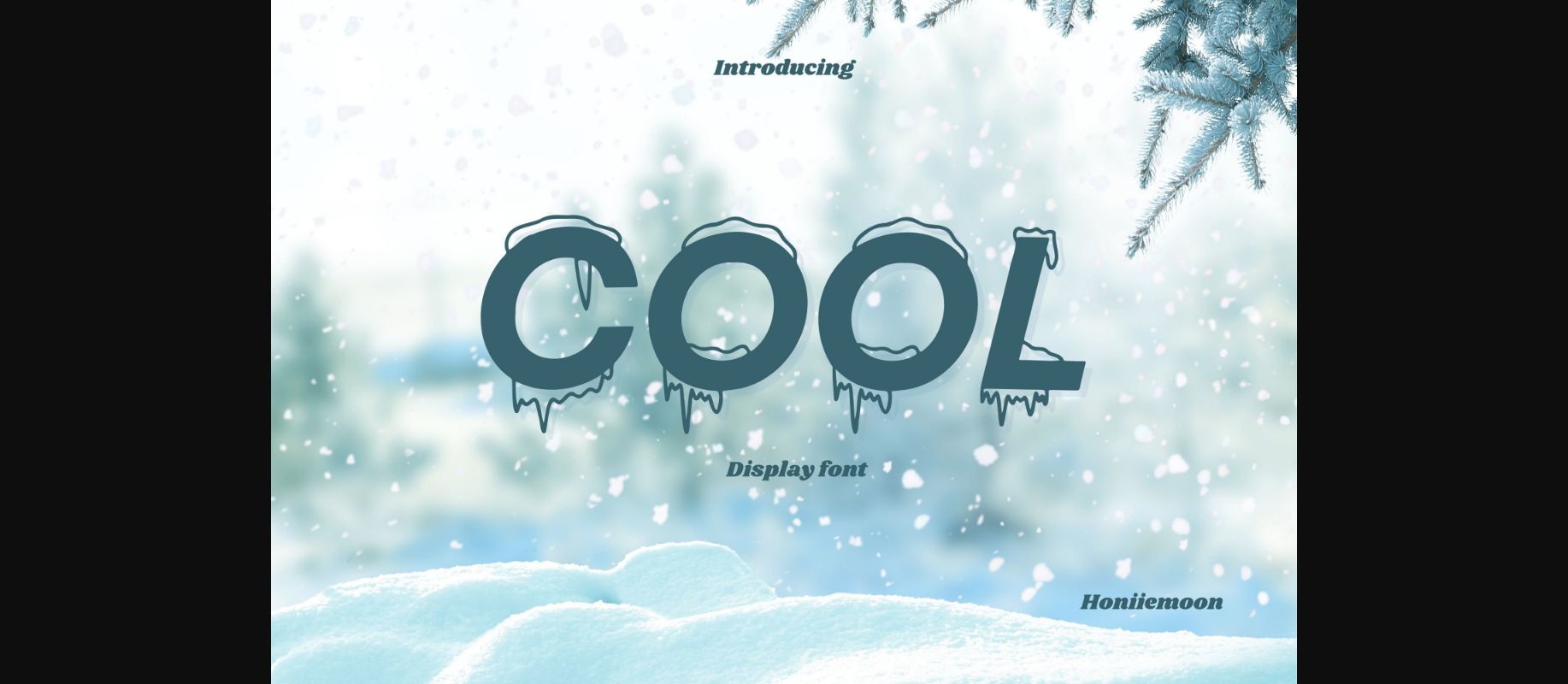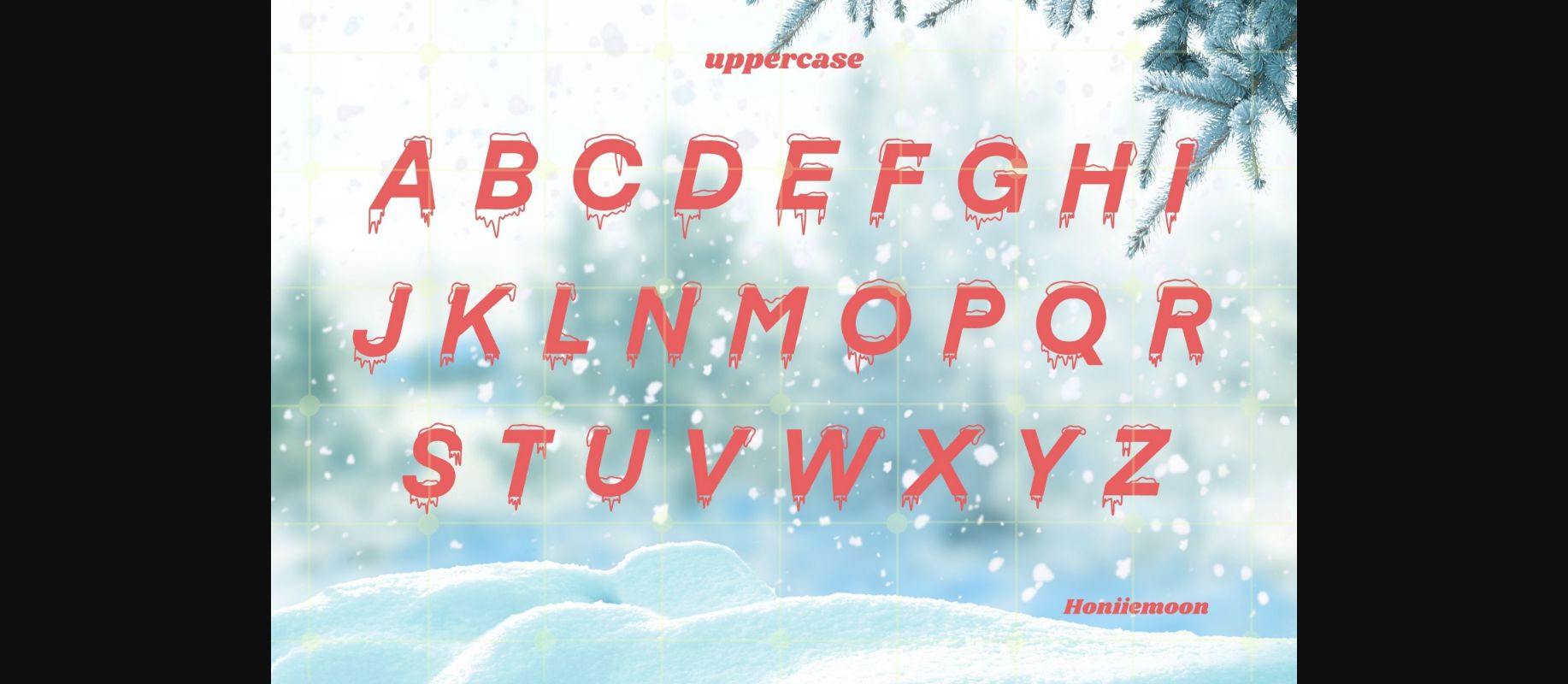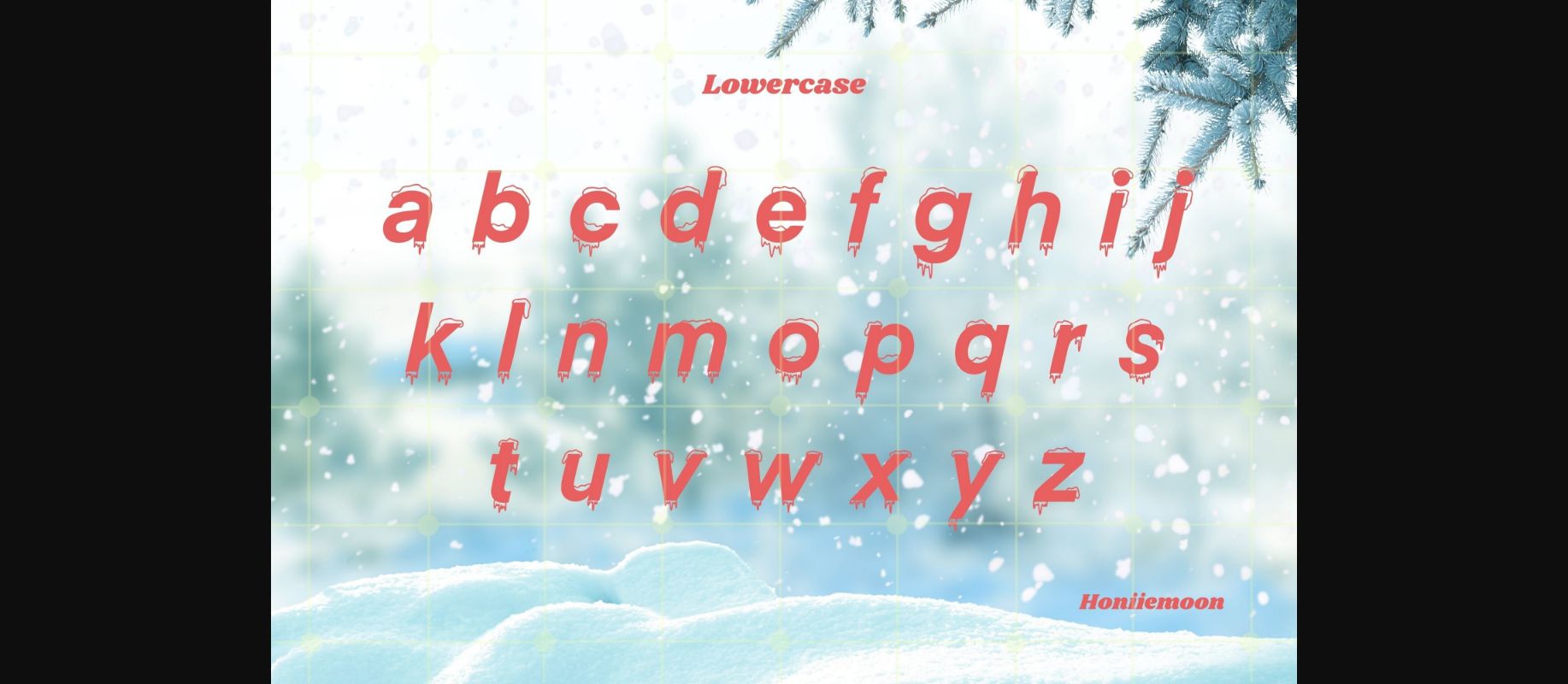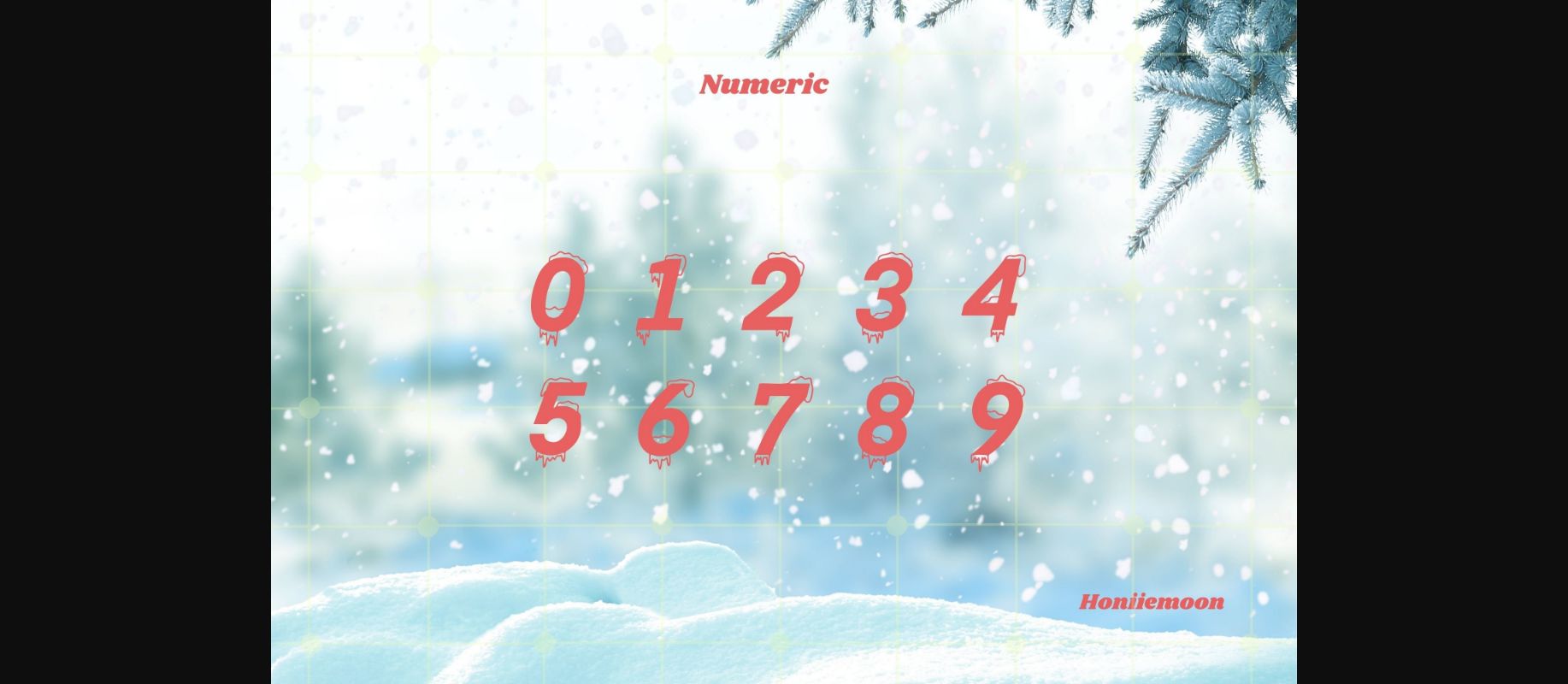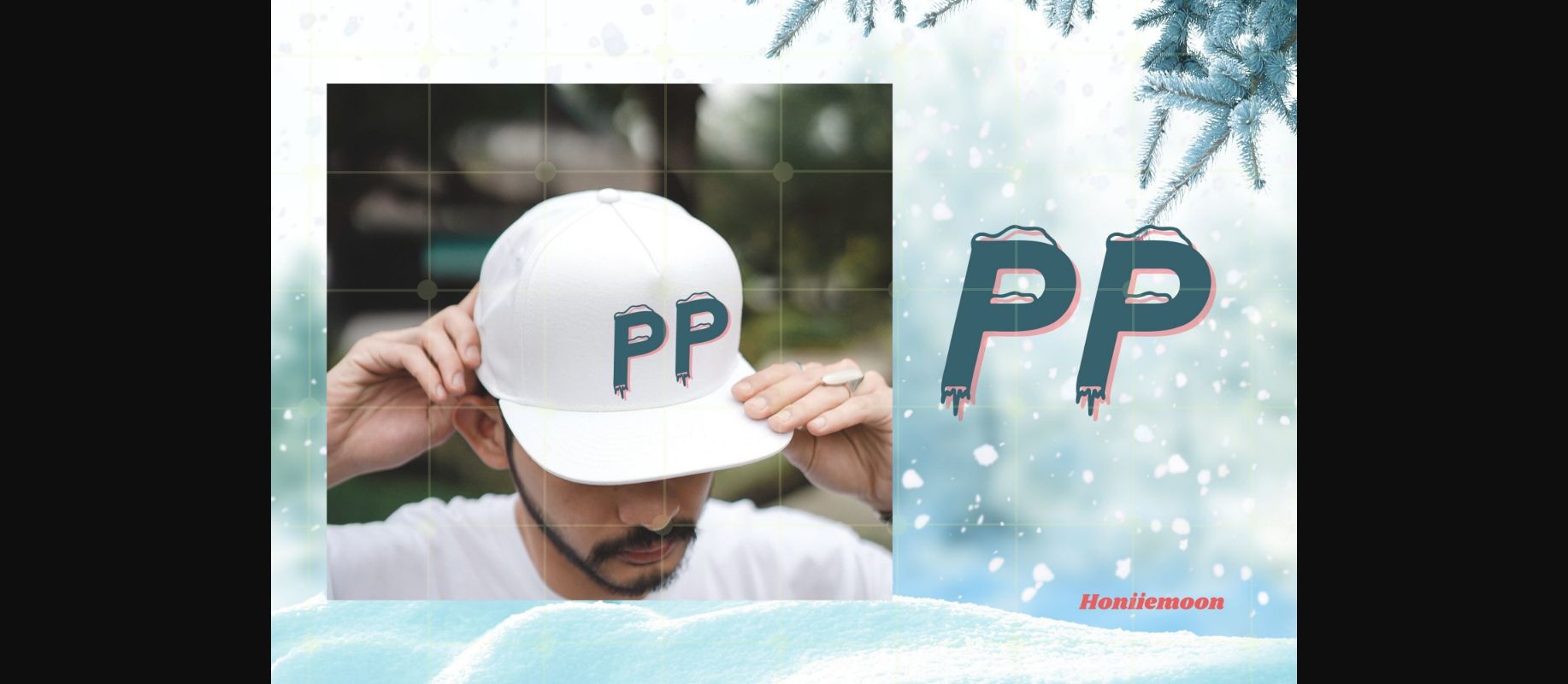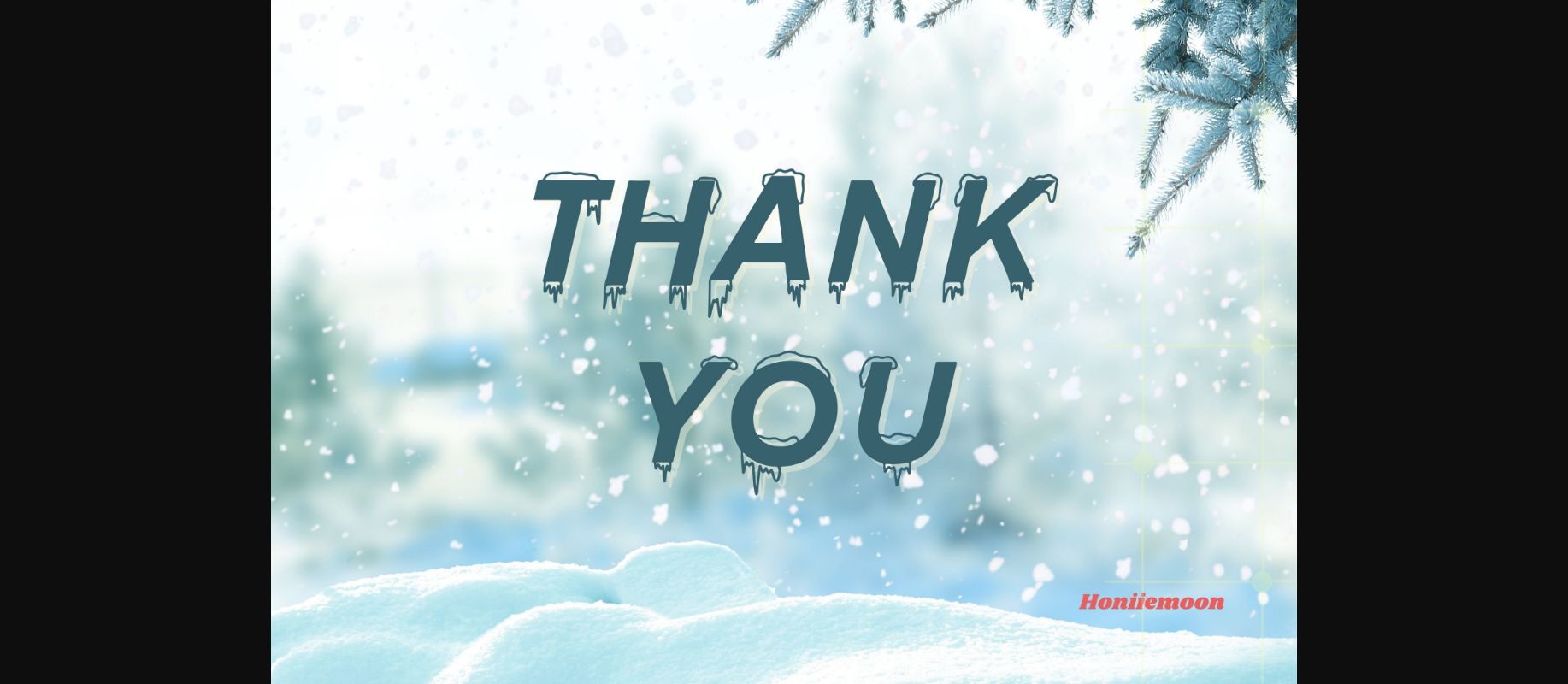
About Cool Font
Cool is a cool and fun decorative font. It looks both cute and jolly and it will enhance each of your designs. The only limit is your imagination. Add this colorful and bold typeface to each of your creative ideas and notice how it makes them come alive!